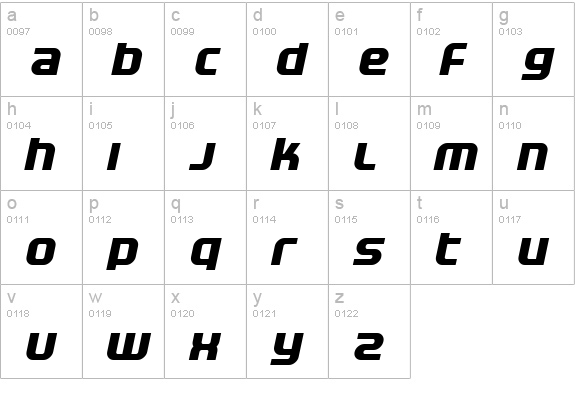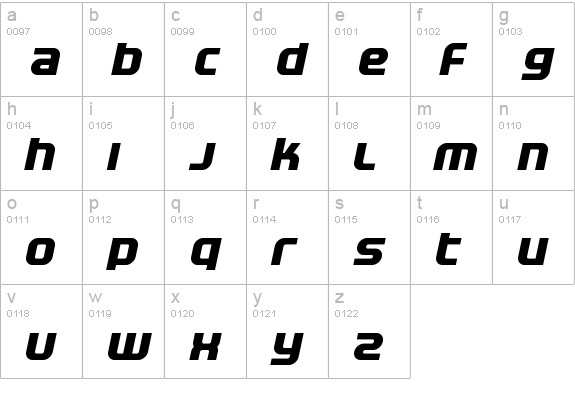
Electrofied BoldItalic Font Details
Electrofied BoldItalic font is a dynamic and eye-catching typeface that exudes energy and modernity. Its bold and italic design makes it perfect for adding a touch of sophistication to any project. The sleek lines and sharp edges of this font give it a futuristic and high-tech feel, making it ideal for branding, headlines, and advertising materials. What's even better is that Electrofied BoldItalic font is available for free download at FontsMarket.com. This means you can easily access this stylish font without any cost, making it a great choice for designers, creatives, and anyone looking to enhance their projects with a bold and electrifying touch. Don't miss out on this opportunity to elevate your designs with the striking Electrofied BoldItalic font, now available for free at FontsMarket.com!